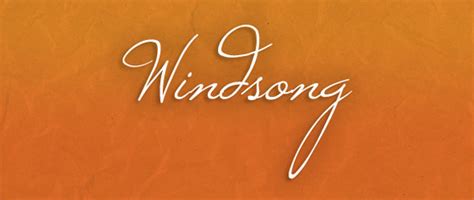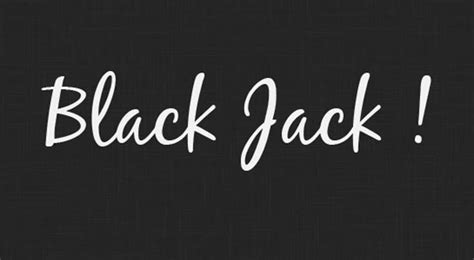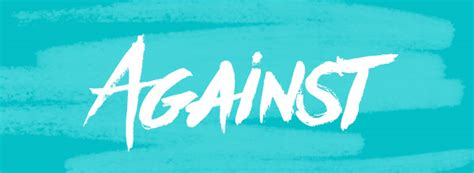
Designers have an incredible choice of free fonts to choose from. So whether you're looking for a serif, script, or sans-serif font, today's collection of the best free
Reddit Best Script Fonts - 20 Free Script Fonts You Can Download - Hongkiat : Collection of handpicked modern script fonts from google fonts.. 3,600+ glyph/icons, 40+ patched fonts: Archive of freely downloadable fonts. Browse by alphabetical listing, by style, by author or by popularity. Here are 35 free script fonts. Each font only comes in one size that it looks good at.
You will be very helpful if you send a name or a link to a set that is not in the catalog. Choosing the right script font for your designs can be a major decision that impacts the overall visual appeal of your website or custom designs. Collection of handpicked modern script fonts from google fonts. Create your own customized patched fonts. Totally confident, with a carefree and slightly hurried elegant yet readable, barcelony is one of the best free script fonts for invitations (image credit:
They're rarely used on the web as a body text and work best when used for their intended purposes. Often with fonts from dafont, they don't because they're not designed by experienced that said, i find bickham script to be lovely. The fonts have the capability to make your designs unique and go viral. If the designers want to use free script font, they can use this font. Welcome to reddit, the front page of the internet. Each font only comes in one size that it looks good at. Script font is a broad style that refers to any typeface that looks like it was drawn by hand. You will be very helpful if you send a name or a link to a set that is not in the catalog.
They're rarely used on the web as a body text and work best when used for their intended purposes.
A beautiful, handwritten font is not hard to come. 20+ of the best script fonts to make your creative projects stand out. Read until finish, to know how to get information about the extended license.archstone script is a beautiful handscript calligraphy style give the natural looks. For scripts, it's really important that the letters connect well. Check out this list of 35 free script fonts. With this post, you can skip the work of sorting through the junk, and cut straight to the best script and handwritten google fonts that are. Blenda script is a free experimental font inspired by lobster font, a bold vintage script. Script fonts are often the most sought after. Рукописные шрифты handwritten, script fonts. A fontforge python script to patch any font. The ttf fonts should also be used at their intended point. This condensed upright connecting script has a classic vibe to it. Download and install free script fonts of the best quality from free fonts and use on your own personal and business related design purposes.
A collection of the best script fonts to use in 2020. Рукописные шрифты handwritten, script fonts. Create cool and modern designs using handwritten and calligraphic lettering style fonts. Script fonts are fonts that use handwritten and calligraphic lettering styles of the past few centuries. Read until finish, to know how to get information about the extended license.archstone script is a beautiful handscript calligraphy style give the natural looks.
Both the league and lost type have some fabulous fonts. Designed to resemble the designer's own handwriting. Collection of handpicked modern script fonts from google fonts. If the designers want to use free script font, they can use this font. Here are 35 free script fonts. In the title of the submission, please include whether it is free, pay what you want, pay with a tweet, or relatively cheap. A collection of the best script fonts to use in 2020. These 50 awesome script fonts can be useful for your graphic designs. They are organized into highly regular formal types similar to cursive writing and looser, more casual scripts. They're rarely used on the web as a body text and work best when used for their intended purposes. Choosing the right script font for your designs can be a major decision that impacts the overall visual appeal of your website or custom designs. We can better keep track of your preferences — like what language you prefer to use. With this post, you can skip the work of sorting through the junk, and cut straight to the best script and handwritten google fonts that are.
A collection of the best script fonts to use in 2020. Different fonts can be used and look best on different uses. They're rarely used on the web as a body text and work best when used for their intended purposes. With this post, you can skip the work of sorting through the junk, and cut straight to the best script and handwritten google fonts that are. A right script font may bring a dramatic change to your creative work, and there are various attractive fonts available for free that can be used for this purpose.
Blenda script is a free experimental font inspired by lobster font, a bold vintage script. Both the league and lost type have some fabulous fonts. Iconic font aggregator, collection, & patcher: Each font only comes in one size that it looks good at. This condensed upright connecting script has a classic vibe to it. Hack, source code pro, more. In the title of the submission, please include whether it is free, pay what you want, pay with a tweet, or relatively cheap. I feel like typography is as important as any other aspect of design.
A collection of the best script fonts to use in 2020.
A right script font may bring a dramatic change to your creative work, and there are various attractive fonts available for free that can be used for this purpose. 3,600+ glyph/icons, 40+ patched fonts: A collection of the best script fonts to use in 2020. Collection of handpicked modern script fonts from google fonts. Hack, source code pro, more. All of these fonts are 100% free, both for personal and commercial uses. For a more vintage/classic or elegant look, check out the elegant script fonts collection. Click suggest font, and then fill out and submit the form. Script typefaces are based upon the varied and often fluid stroke created by handwriting, pretty much like the cursive fonts just typically more elegant. Iconic font aggregator, collection, & patcher: They're rarely used on the web as a body text and work best when used for their intended purposes. 50+ patched and ready to use programming fonts. Create your own customized patched fonts.